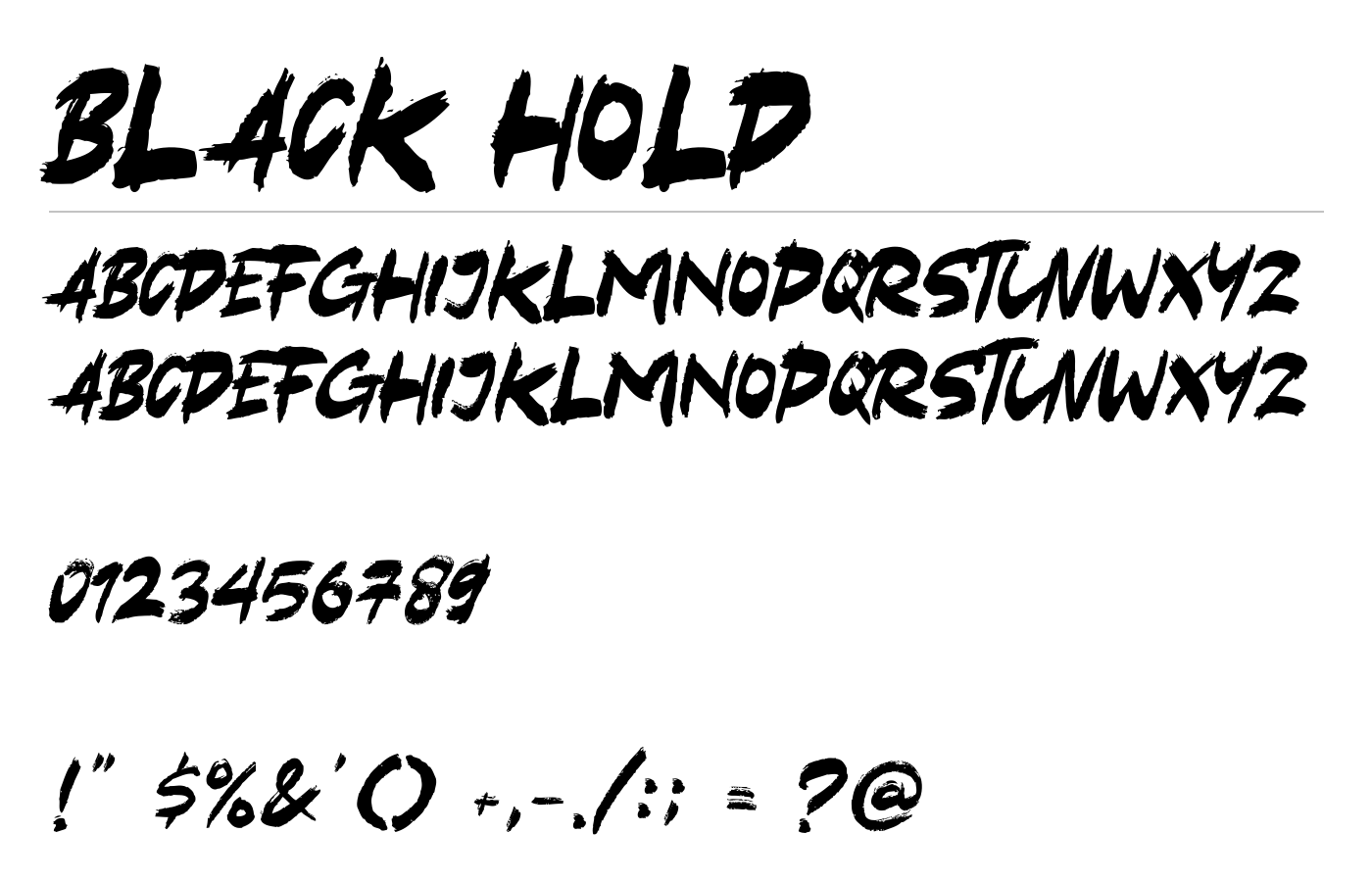
Black Hold is a bold, expressive brush script font with a strong texture that mimics rough, hand-painted strokes. Its energetic, informal character makes it ideal for designs seeking a dynamic, edgy feel, fitting perfectly in creative branding, posters, and headlines where personality and impact are key. This font's rugged style adds a raw, artistic vibe, making it great for urban, sporty, or adventurous projects.
Black Hold Font
About Black Hold Font
| Font family | Black Hold Font |